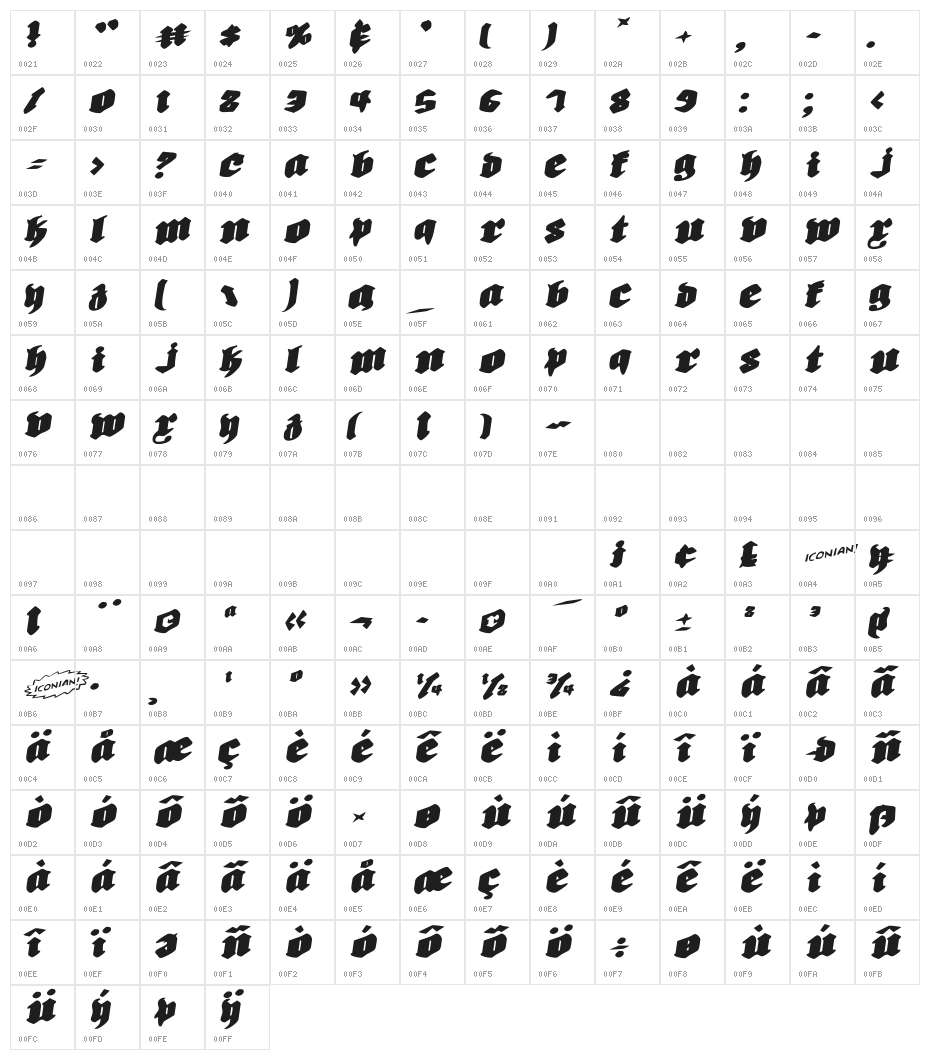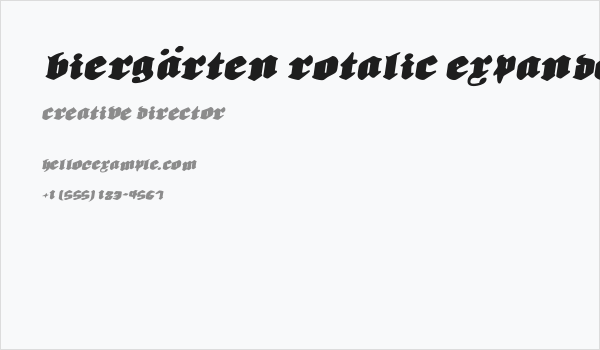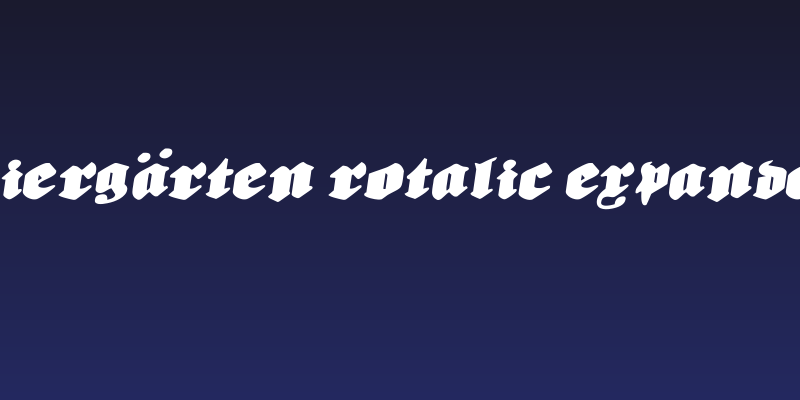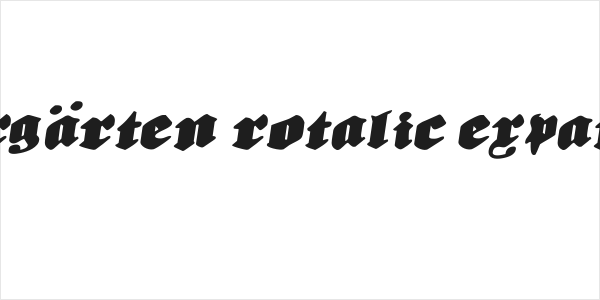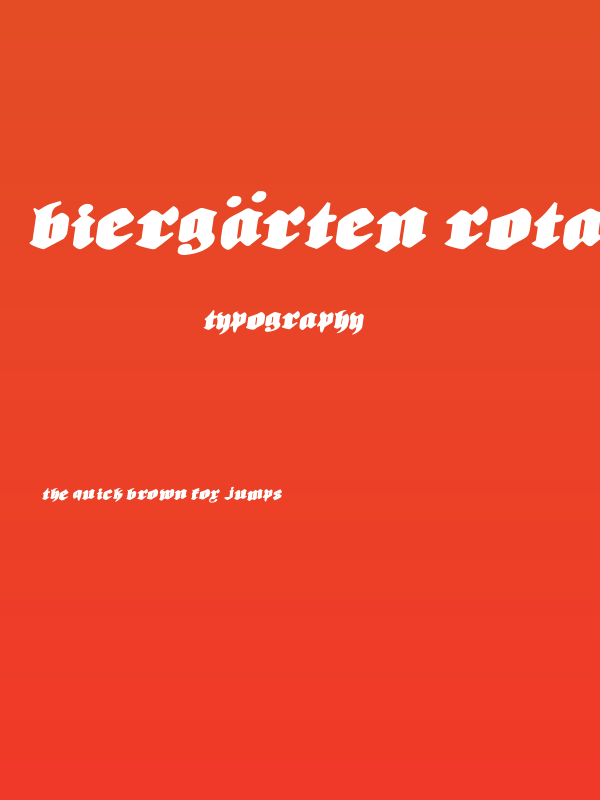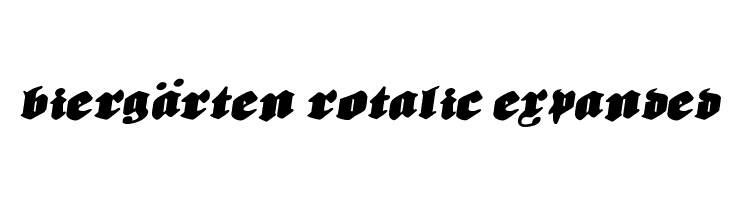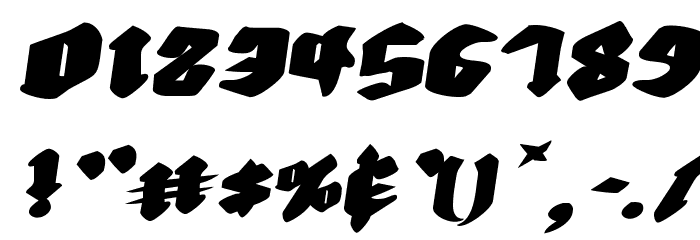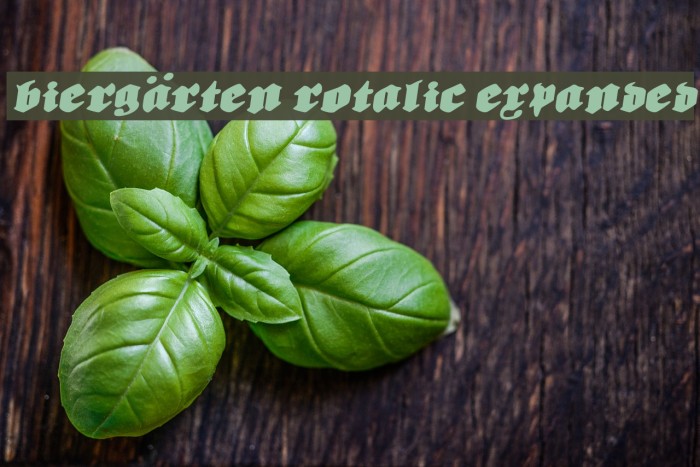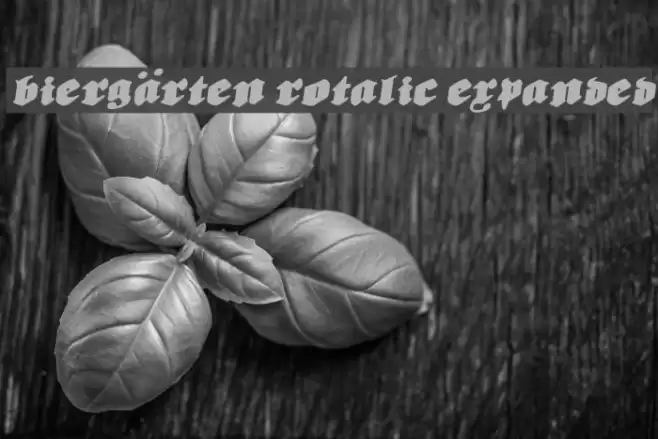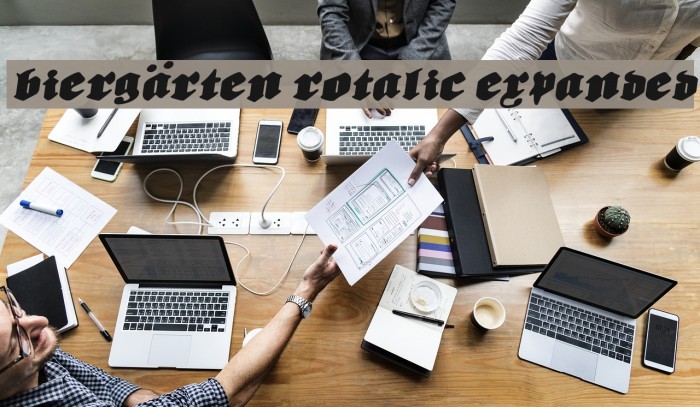
Biergärten Rotalic Expanded Font
Biergärten Rotalic Expanded Description
This font exhibits a bold and dramatic style, reminiscent of traditional Blackletter typography. The characters are sharply defined with thick strokes and pointed edges, creating a sense of strength and authority. The expanded width gives the font a commanding presence, making it ideal for impactful designs. The italic slant adds a dynamic and energetic feel, enhancing its visual appeal. The font maintains a consistent weight throughout, ensuring readability despite its intricate design. The character spacing is tight, contributing to its cohesive and unified appearance. This font is perfect for projects that require a historical or gothic touch, such as event posters, book covers, or branding for vintage-themed products.
| Categories | Gothic |
| Width | Expanded |
| Overall Style | Vintage |
| Proposed Projects | Ideal for event posters, book covers, vintage branding, and gothic-themed designs. |